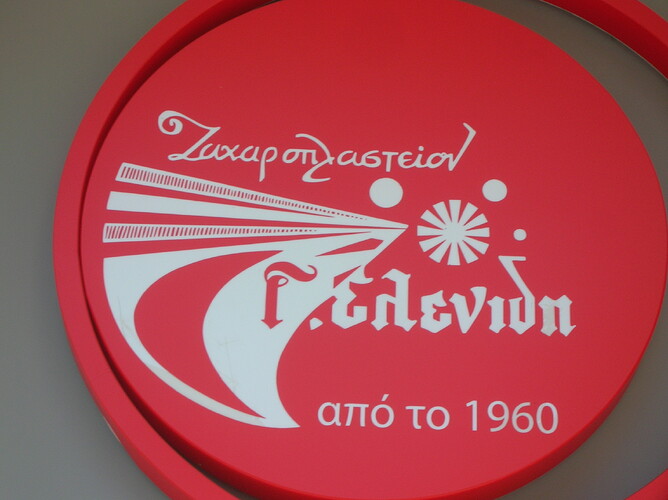
For reasons which are unlikely to become apparent I have started a Gothic font.
The Latin characters are OK. I downloaded a scan of some suitable old documents from the 14th century and have got most of the letters from that, the scans were messy and needed tidying up a lot but that is not a problem.
What is a problem is that this font must support Cyrillic.
It seems that Cyrillic has changed a LOT since the 14th century.
Even the alphabet has changed, some of the letters in old Cyrillic aren’t used in modern Cyrillic.
So I either have to use modern Cyrillic letterforms and butcher them to look Gothic or I try to find contemporaneous documents (i have very little at present) and make the letterforms as they were in the 14th century but then they will probably appear unintelligible to modern Russians.
Two years ago in Salonica I took a picture of this shop sign (6552.jpg). It uses three Greek styles. The interesting one is the middle one. It appears to be Greek made to look like textura. I guess that it reads: “Γ. Ελεvιδη”. I think it shows a compromise between keeping Greek letter shapes and using the vertical lines of a textura.
I don’t know what sort of blackletter you have, but I suspect that if you are making a textura (textualis) font rather than rotunda, bastarda or whatever, then the upright structure of cyrillic should not be a problem. The problem will be what to do with the horizontal lines: which way you should tilt them.
Thank you, I am no expert but I think the style is something like ‘Gothica Textura Prescissa’ comparing it to some examples that have that classification.
That just happens to corerespond to the document I found which had a good selection of characters, so I used it.
I will butcher modern Cyrillic to make it fit but I will adjust some of the characters to make them more like the old Cyrillic I have found.
I will also have to put in some of the obsolete characters.
I’ve been working on a blackletter font over the last couple years, based on an actual 17th century font, and I “made up” both Cyrillic and Greek/Coptic character sets for it because I basically discovered the same thing you did – after doing research on Cyrillic fonts from that period, they just looked SO different that I felt they’d be virtually unintelligible to modern audiences (and useless for modern uses). So I ended up just creating “modern” character sets for those essentially using bits and pieces from the Latin set.
I’ve posted my font (called “Wickednesse”) here…
…although after posting it (for the second time, just recently) I suddenly saw so many things wrong with it still, and have been working at fixing those things up. Oops!
In any case, I’m thinking of just totally scrapping the Cyrillic, and Greek/Coptic, from my font because I just don’t know what the heck I’m doing with those, really – that was going to be my query (in another thread I was going to post), whether what I’ve done is “good enough” to keep them, or whether I should give them up. But in the meantime, I thought perhaps you might like a look at what I did, if for no other reason than for perhaps some ideas or something.
Yes I have taken a good look at ‘Wickednesse’, it is a good font, well done.
My font is called ‘Drumph Gothic’, the basic character shapes I copied from ‘The Luttrell Psalter’ which is available at the British Library. For reasons of humour the font has to support Cyrillic but that became a bit of a compromise so I haven’t done any work on it recently and it languishes on my hard disk, but one day I will finish it (hopefully some time soon-ish).
Yes there is a problem here, if it is to be historically accurate the Cyrillic needs to be very different from modern Cyrillic but to be useful as a contemporary font the Cyrillic needs to be comprehensible to modern users. Whatever solution I come up with will be a compromise between these two extremes.
Oh! I saw a reference to that the other day – this is your, uh, political statement, eh? I think I saw a thread where you mentioned having an idea to do it – nice to see you followed through on that!